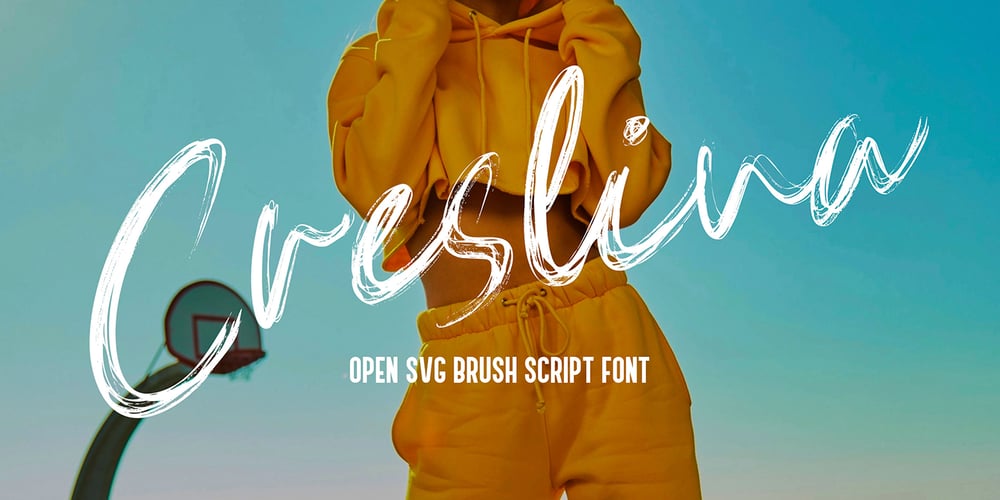
Creslina Font Family was designed by Yahdi Kumala and published by Rometheme. Creslina contains 1 styles and family package options. Creslina – Open SVG Brush Script font. It has a elegant, classy look and beauty. It’s a great font for fashion, apparel projects, signature, album cover, logo, branding, magazine, social media, & advertisements, but also works great for other projects.Highlight : Standard glyphs (Uppercase, Lowercase, Numeral & Punction) Work on PC or Mac PUA Encoded Support Fonts include multilingual support for; ä ö ü Ä Ö Ü ß ¿ ¡ No special software is required, The fonts can be opened and used in Adobe Illustrator, Adobe Photoshop, Adobe InDesign, even work on Microsoft Word.